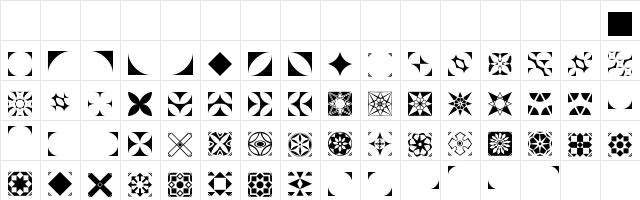
LTSindbad Regular Free Font
LTSindbad Regular
LTSindbad Family
Design Context for LTSindbad
LTSindbad is a composed and adaptable typeface that performs quietly and consistently across a wide range of design contexts.